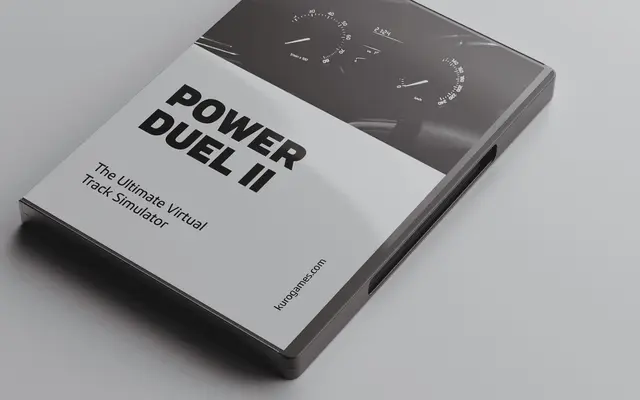
A geometric sans in eight weights with subtle detailing, drawing conceptual influence from RPG video games and game theory.
Kuro pairs modern geometric forms with restrained detailing across eight weights, from Thin to Black, with over 450 characters per style and manually edited kerning. The lighter weights suit body copy with a contemporary feel, while the heavier cuts carry enough presence for branding, identity and packaging work. Its conceptual framing around video game culture and game theory gives it a distinct point of view without compromising its general utility.
Kuro is described as a geometric sans-serif with modern geometric forms and subtle detailing, placing it firmly in the geometric sans subcategory.